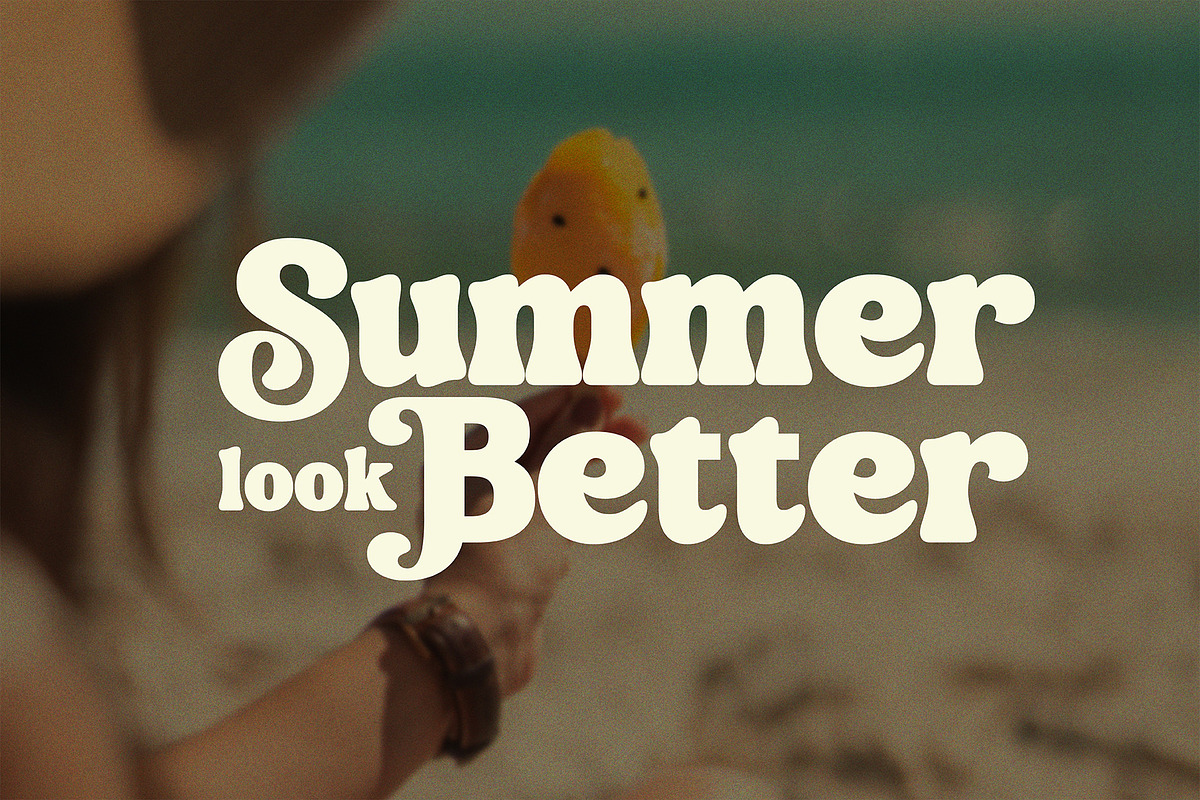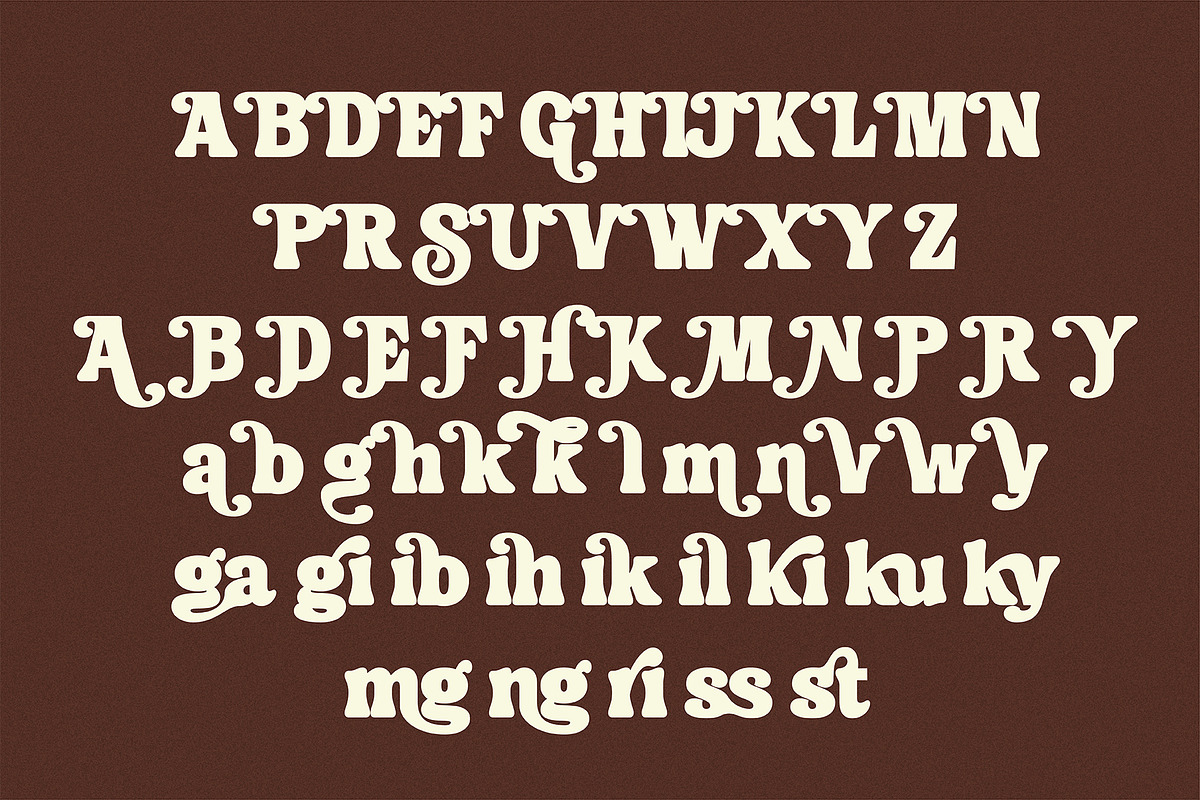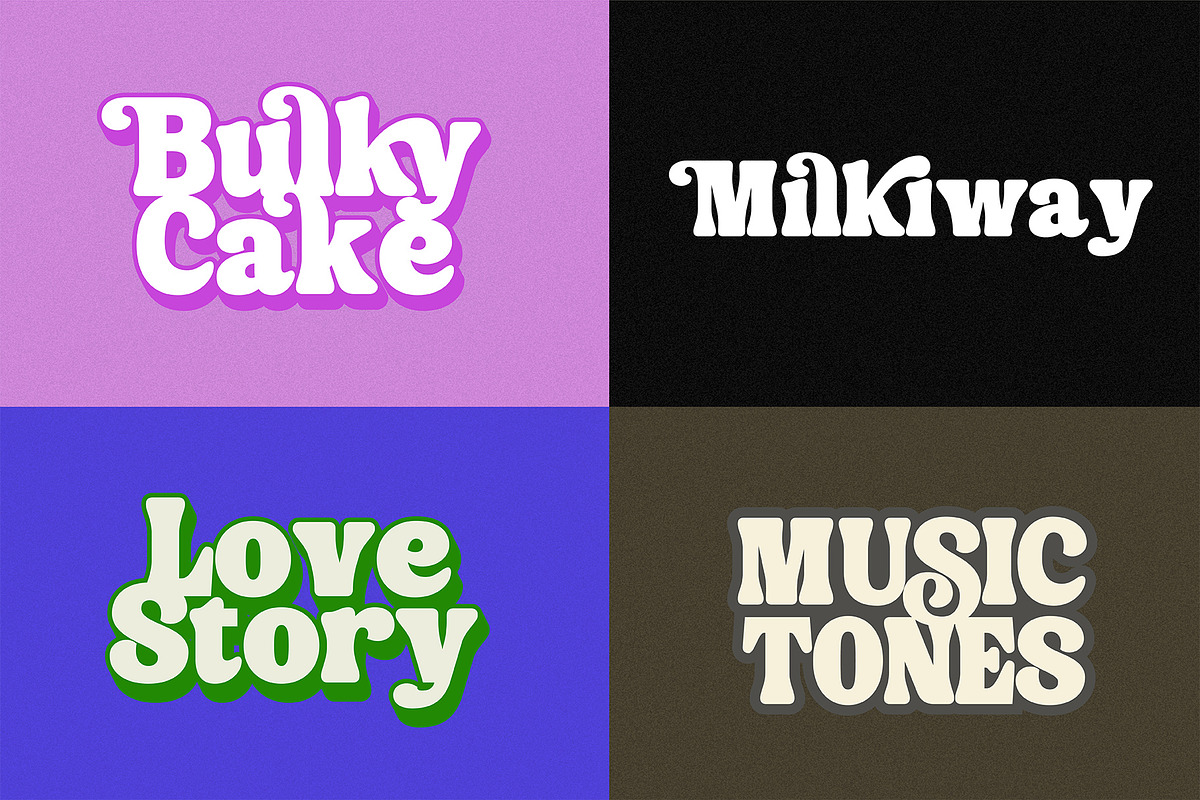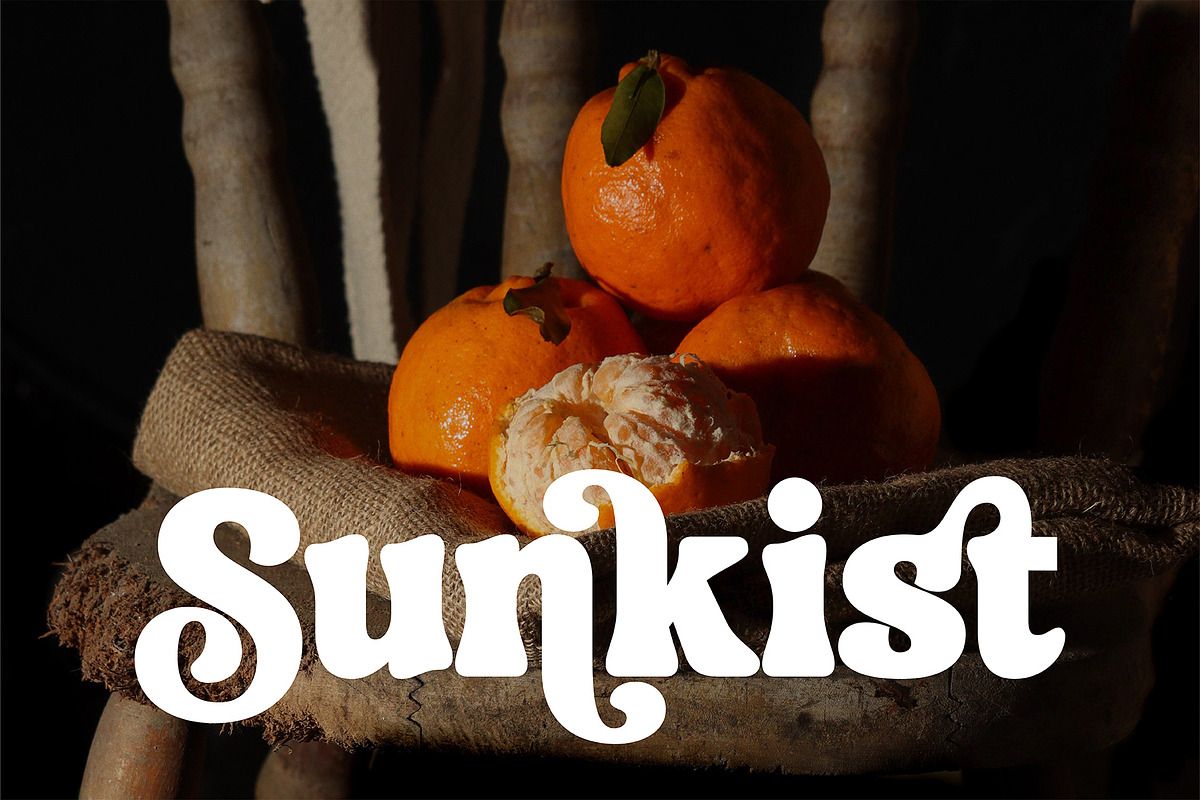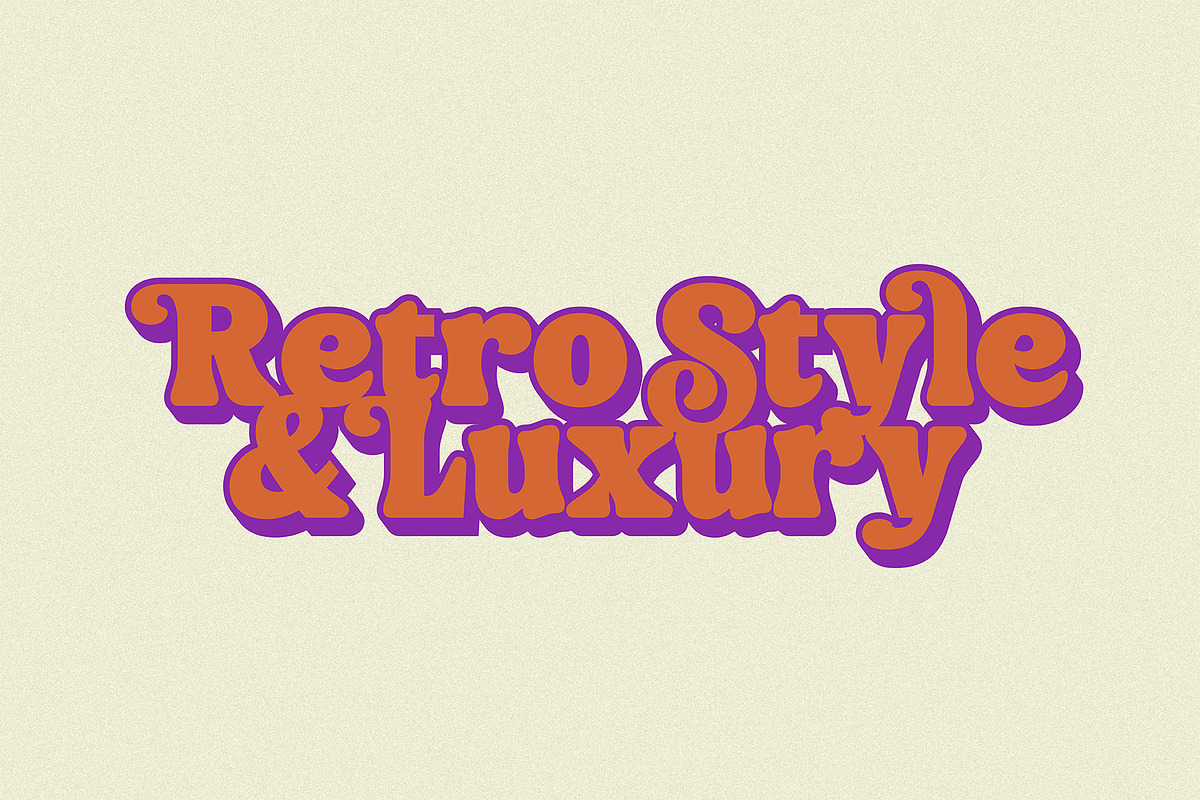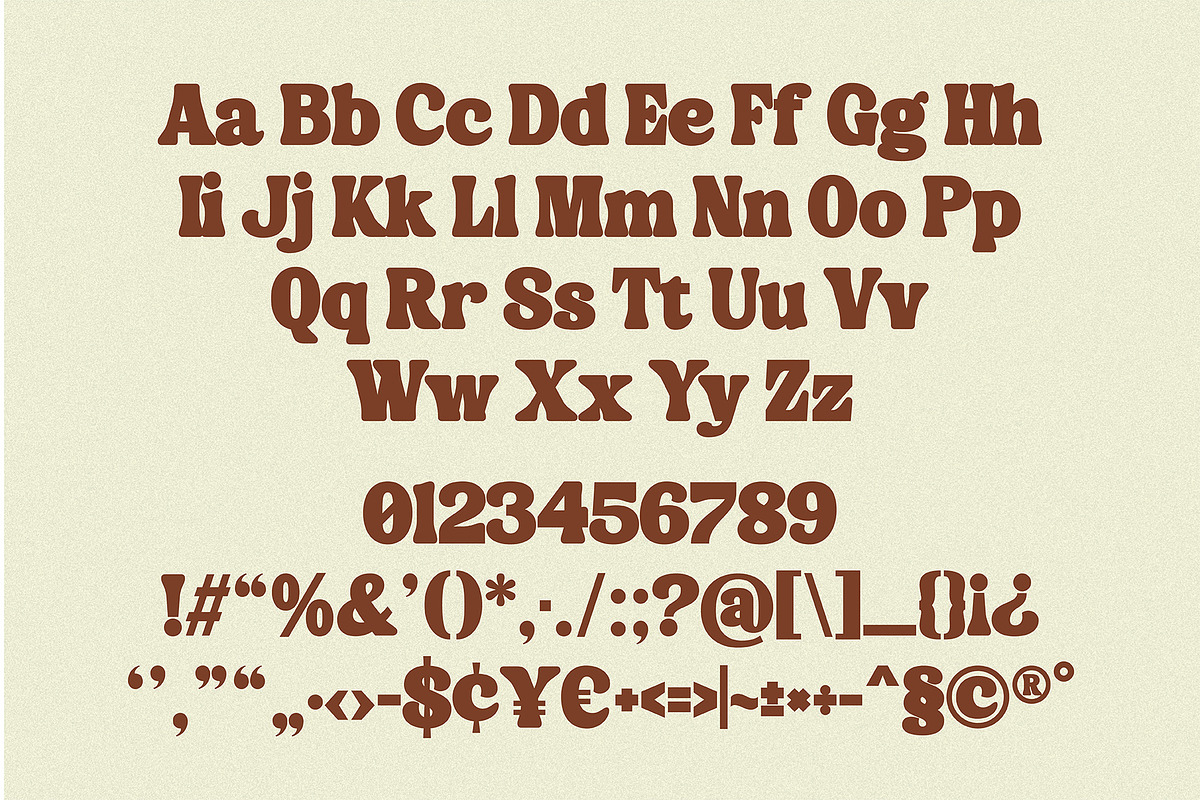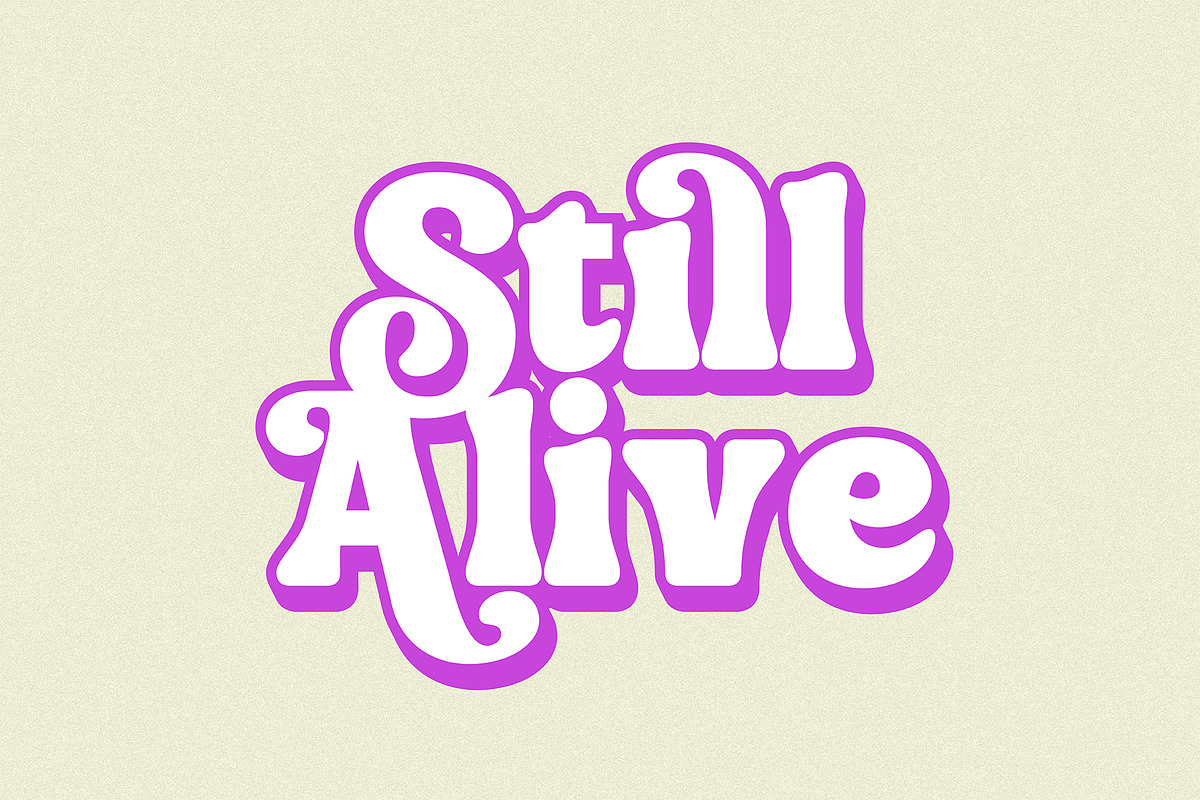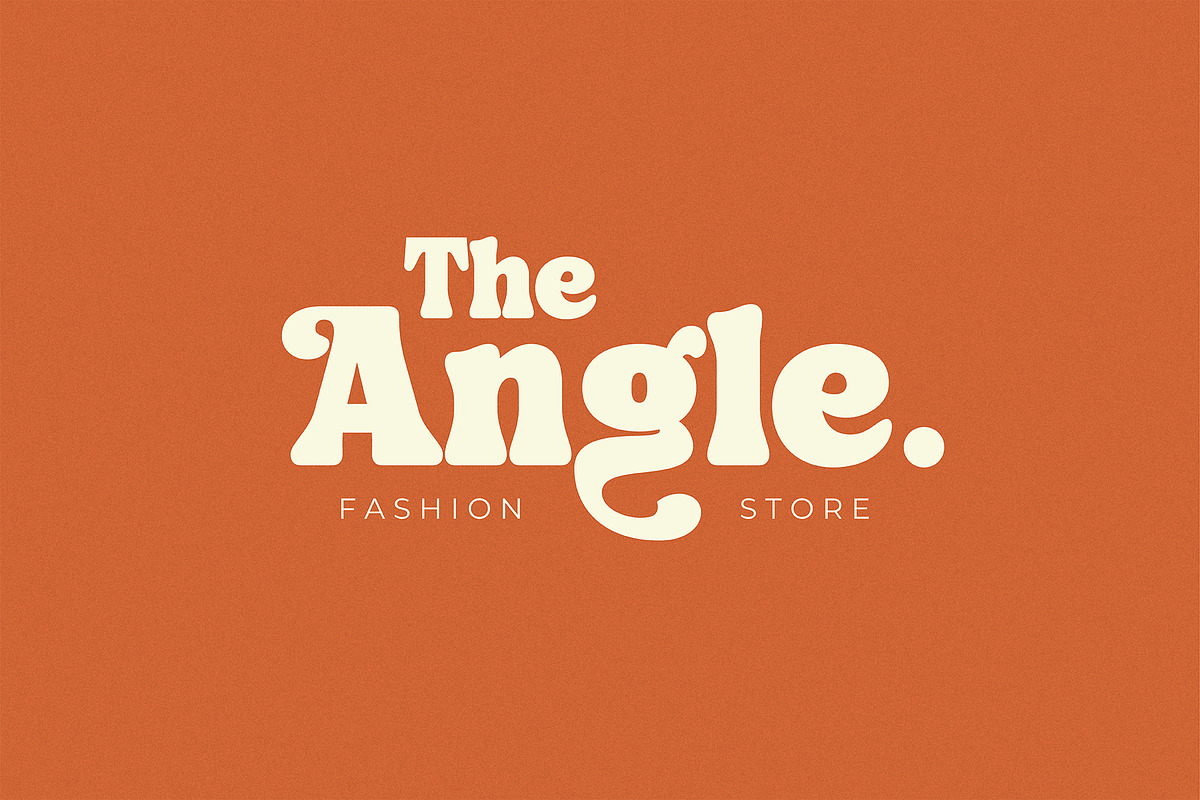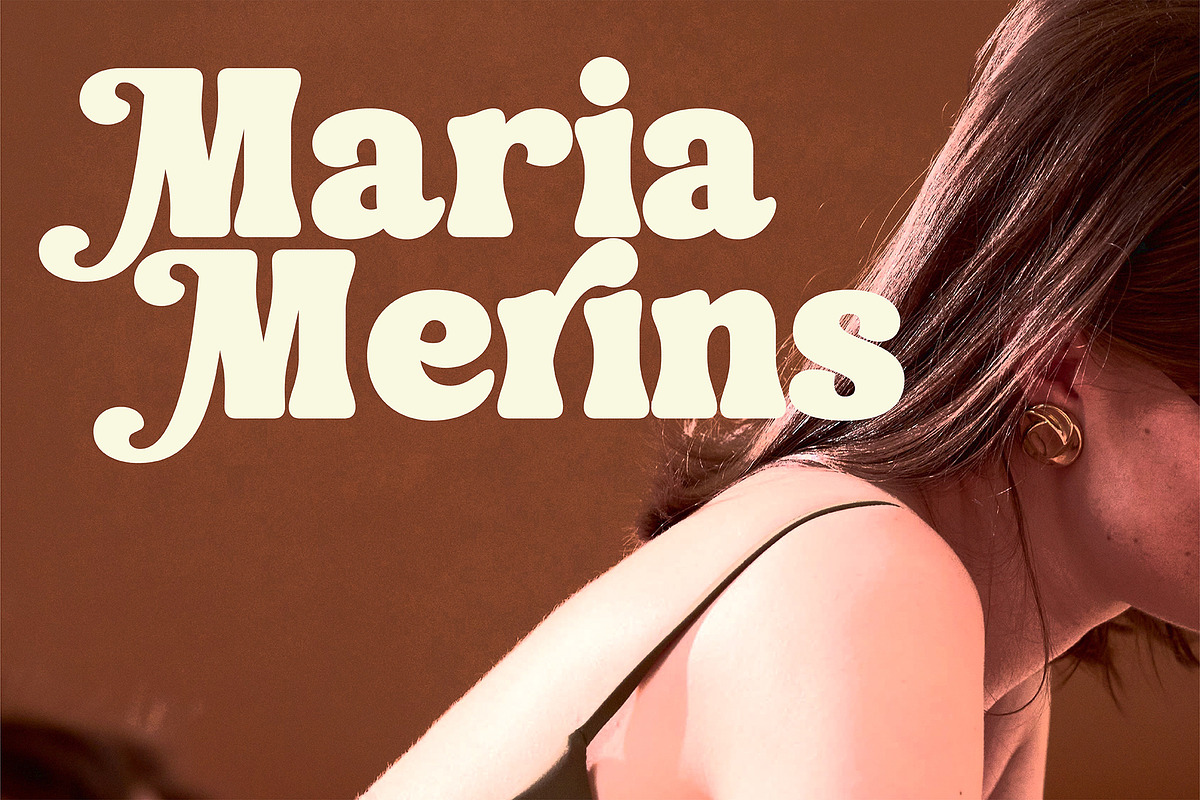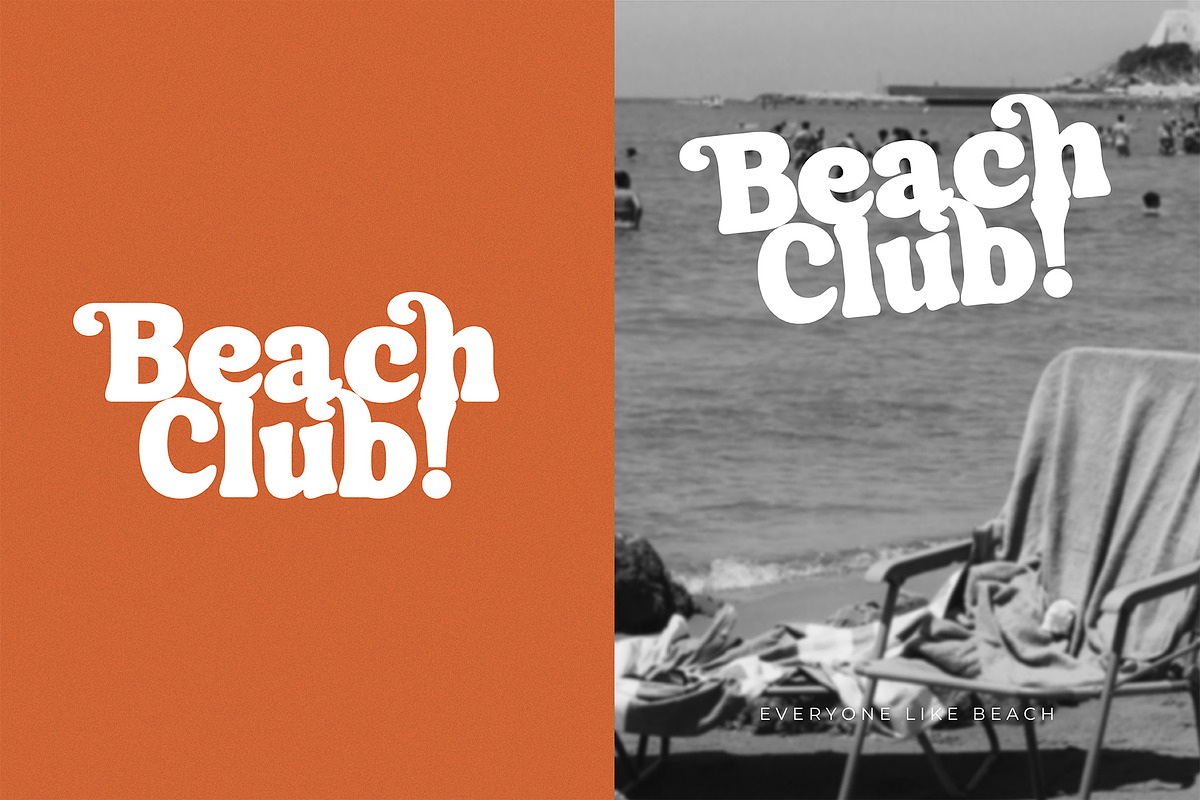
Silky Milky-Bold Retro Serif
SILKY MILKY — RETRO BOLD DISPLAY FONT
Meet Silky Milky, a bold and dynamic retro display font designed to bring a playful yet powerful personality to every design. Inspired by the energetic visual language of vintage posters, retro advertisements, and nostalgic pop culture, Silky Milky combines chunky letterforms with smooth curves and a lively rhythm.
Its bold structure creates an instant visual impact, while its dynamic shapes give your typography a sense of movement, fun, and confidence. Silky Milky is made to stand out—whether used in large headlines, branding, packaging, posters, apparel, social media graphics, or eye-catching promotional designs.
With its nostalgic character and contemporary attitude, Silky Milky adds a deliciously retro touch while remaining fresh, expressive, and versatile.
Silky Milky — bold, smooth, playful, and unapologetically retro.